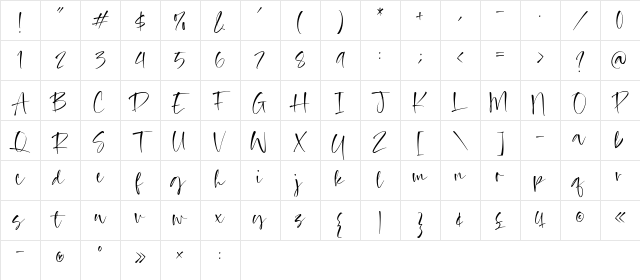
Romantic Homicide Regular Free Font
Romantic Homicide Regular
Designer: Timur Type Studio
Design Context for Romantic Homicide
Romantic Homicide is a composed and adaptable typeface that performs quietly and consistently across a wide range of design contexts.